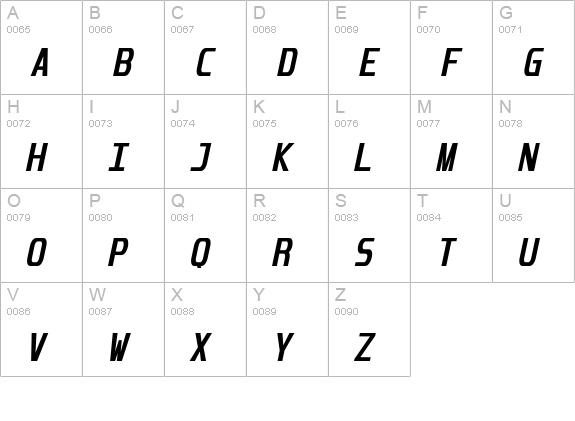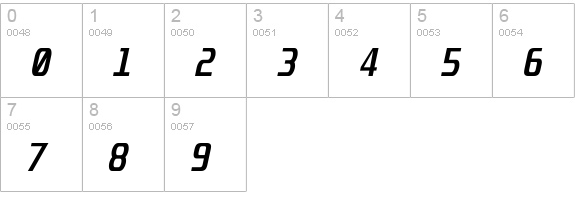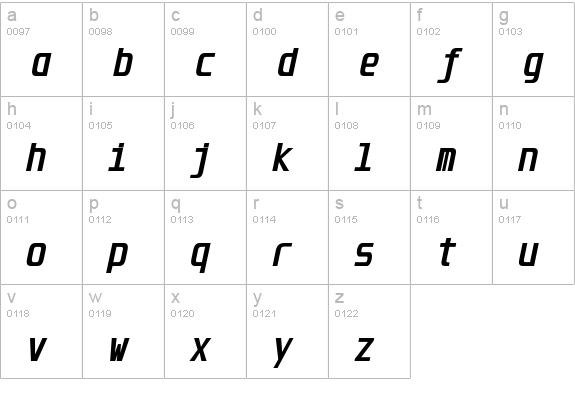
Unispace Bold Italic Font Details
Unispace Bold Italic is a strong, high-contrast, italic variant in the Unispace typeface family \xE2\x80\x94 well suited to headlines, attention-grabbing titles, and strong calls-to-action.
Unispace Bold Italic is a captivating font that effortlessly combines modernity with elegance. Its bold and italicized design exudes confidence and sophistication, making it the perfect choice for any project that demands attention and impact. With its clean lines and precise curves, Unispace Bold Italic strikes the perfect balance between professionalism and creativity. Whether you're designing a sleek logo, crafting eye-catching headlines, or creating stunning typography for your website, this font will elevate your work to new heights. One of the best aspects of Unispace Bold Italic is that it is available for free. Yes, you read that right - this extraordinary font can be freely downloaded at FontsMarket.com. This means that you can bring a touch of refinement to your designs without breaking the bank. Unispace Bold Italic is a versatile typeface that effortlessly adapts to any design concept. Its legibility remains impeccable even at smaller sizes, ensuring that your message is always clear and impactful. Additionally, the italicized style adds a touch of flair and dynamism, making your text stand out from the crowd. Whether you're a professional designer or an aspiring creative, Unispace Bold Italic is the font you need to add a touch of sophistication to your projects. So, why wait? Head over to FontsMarket.com and download this extraordinary font for free today. Elevate your designs and make a lasting impression with Unispace Bold Italic.